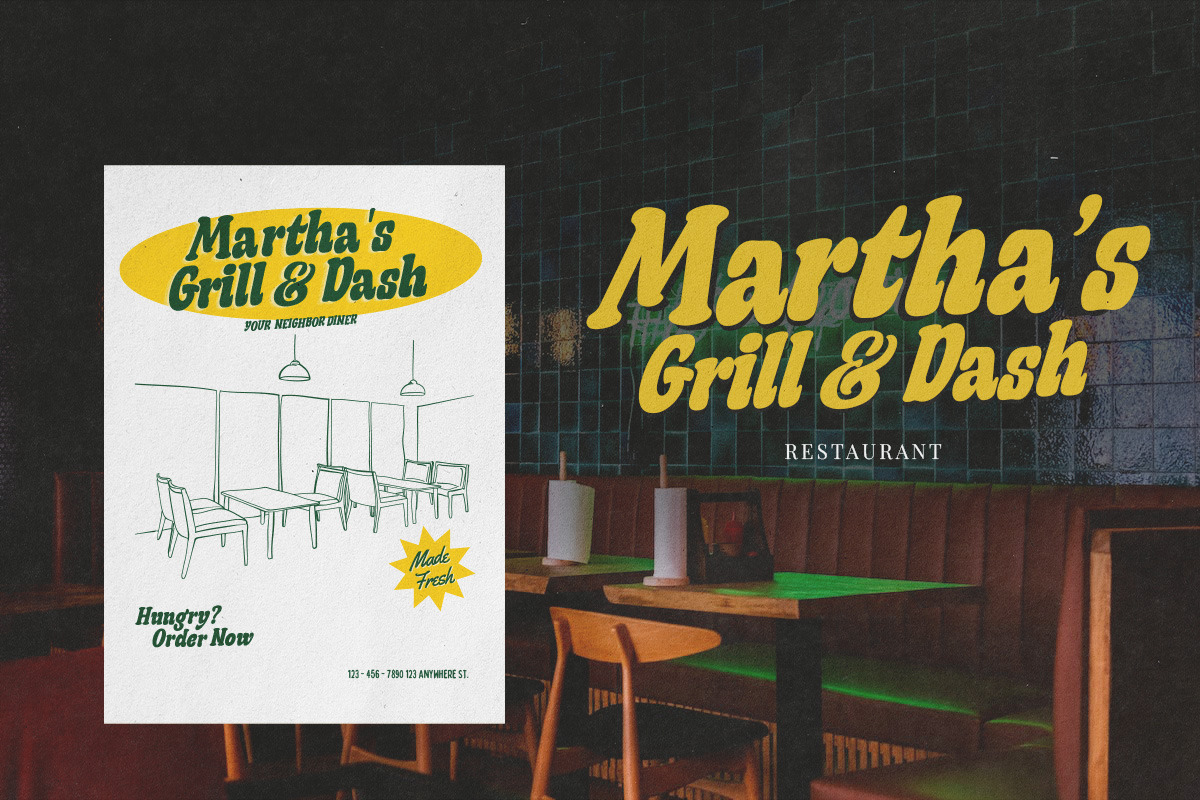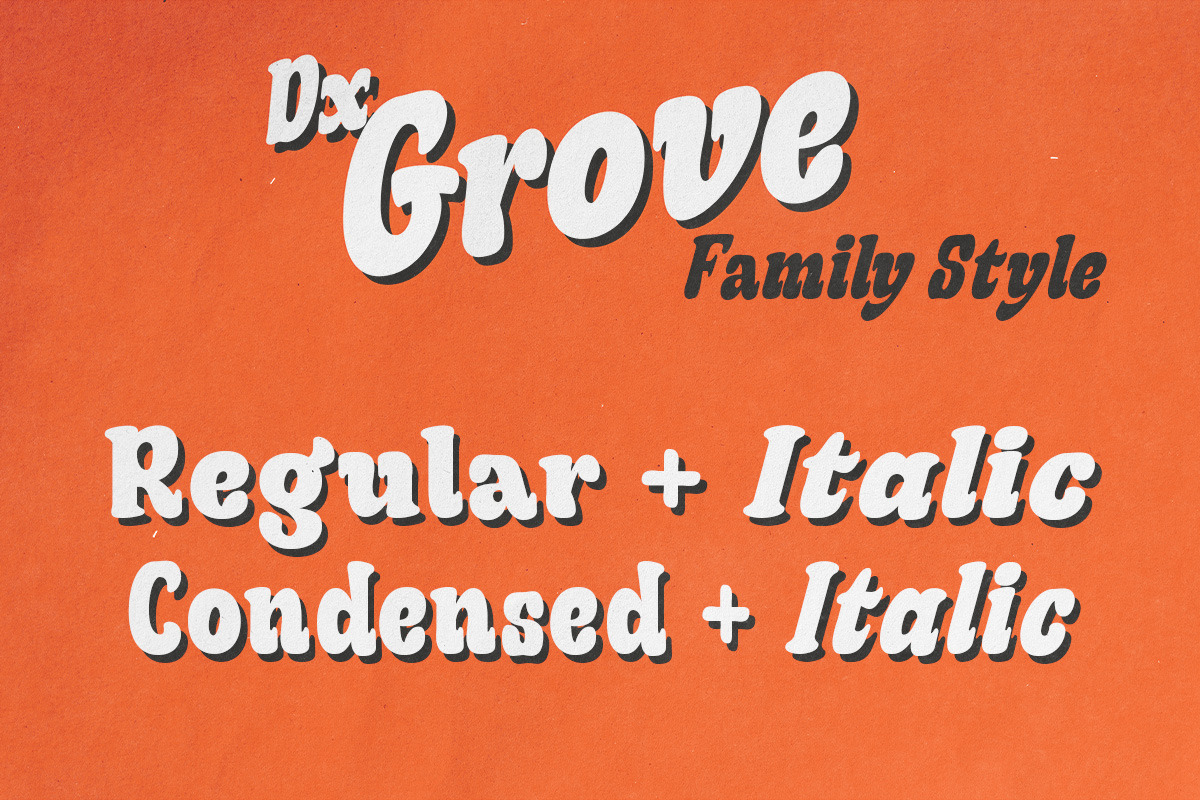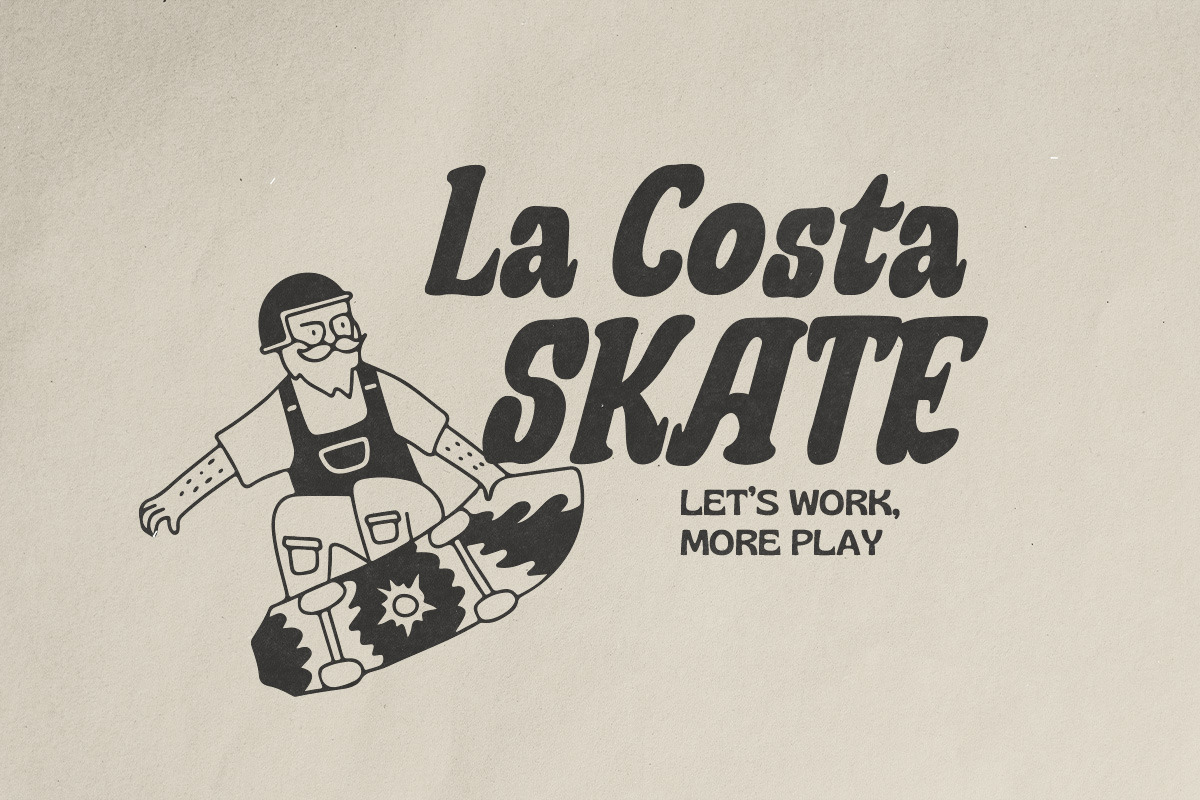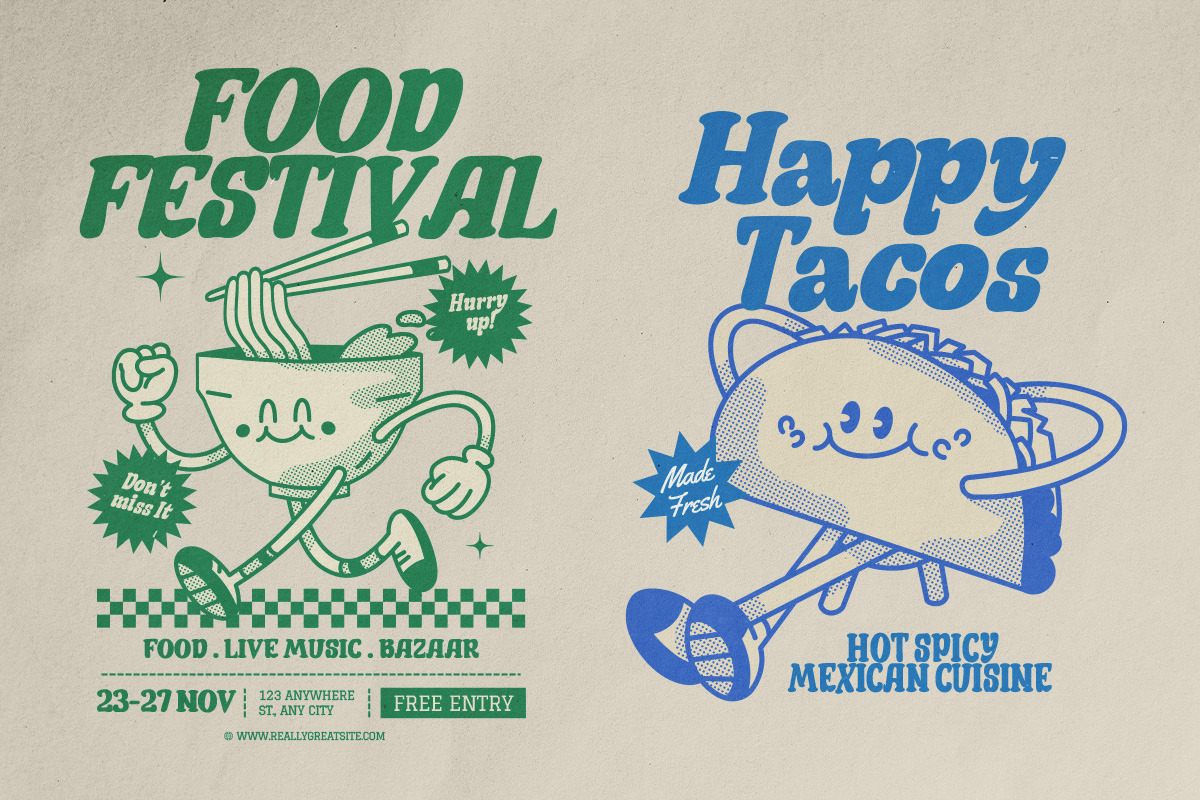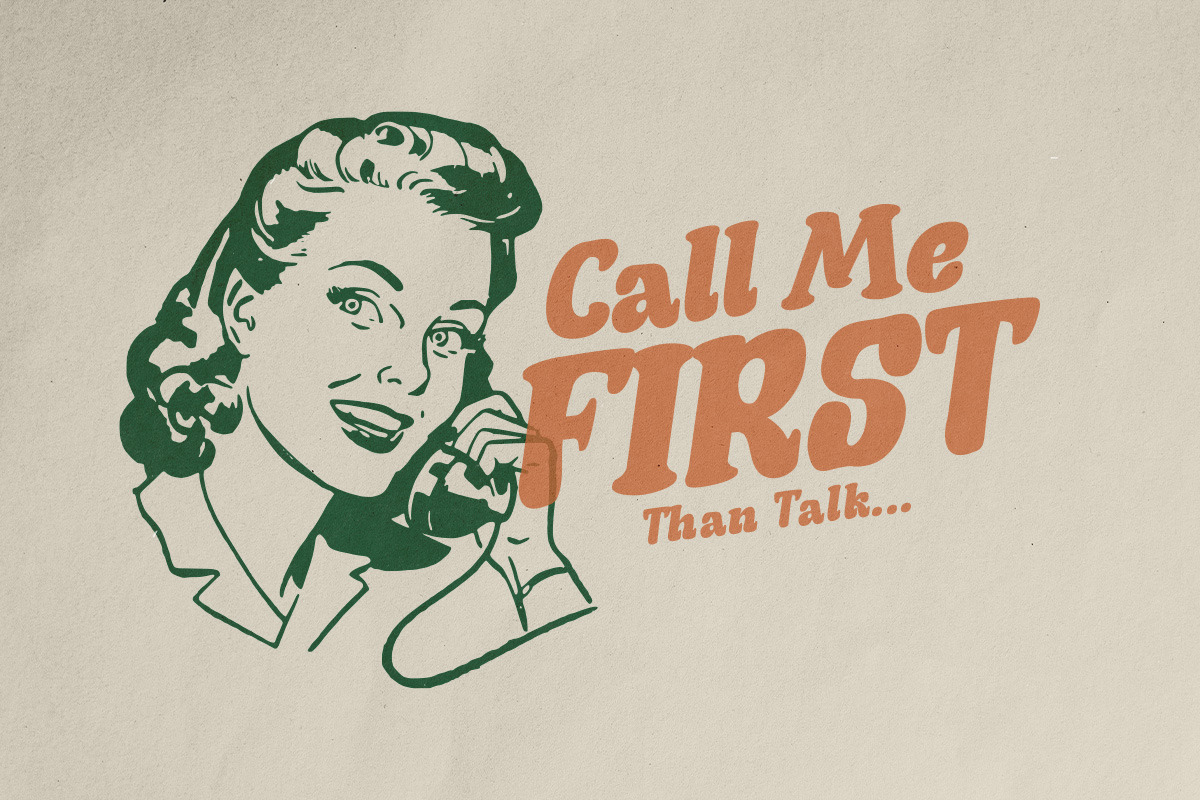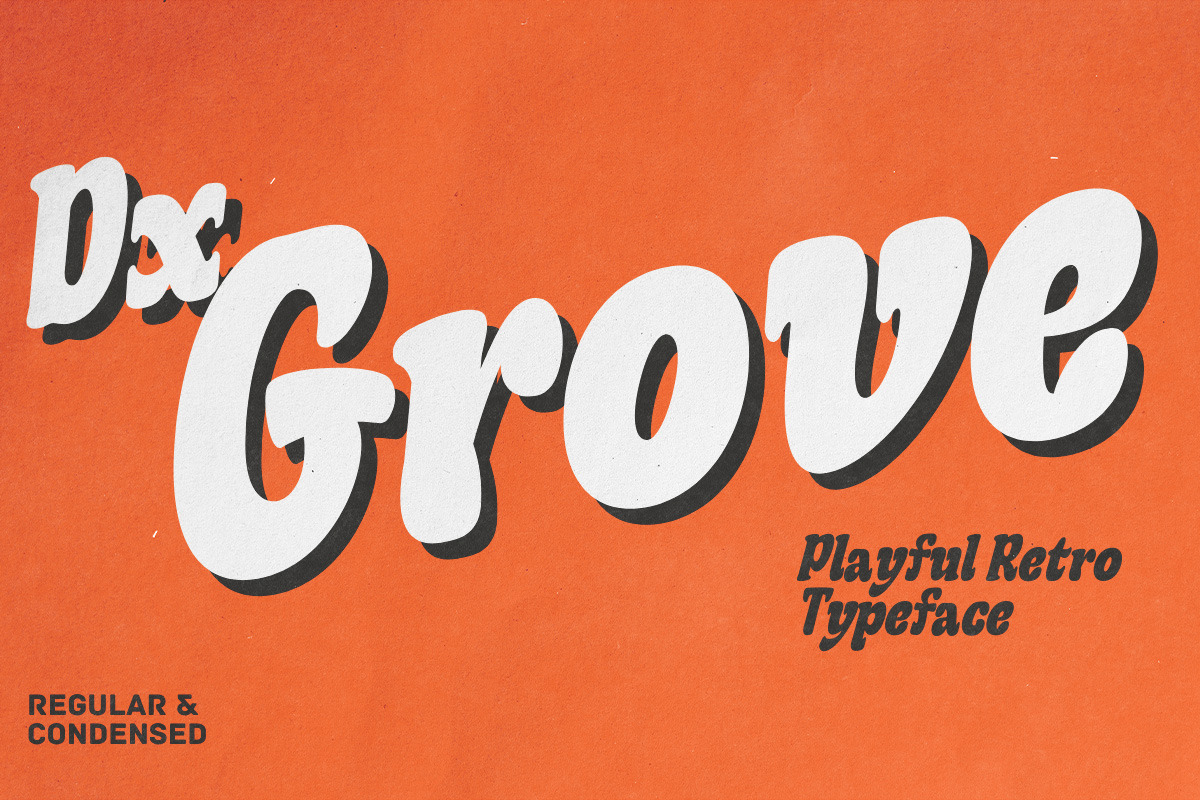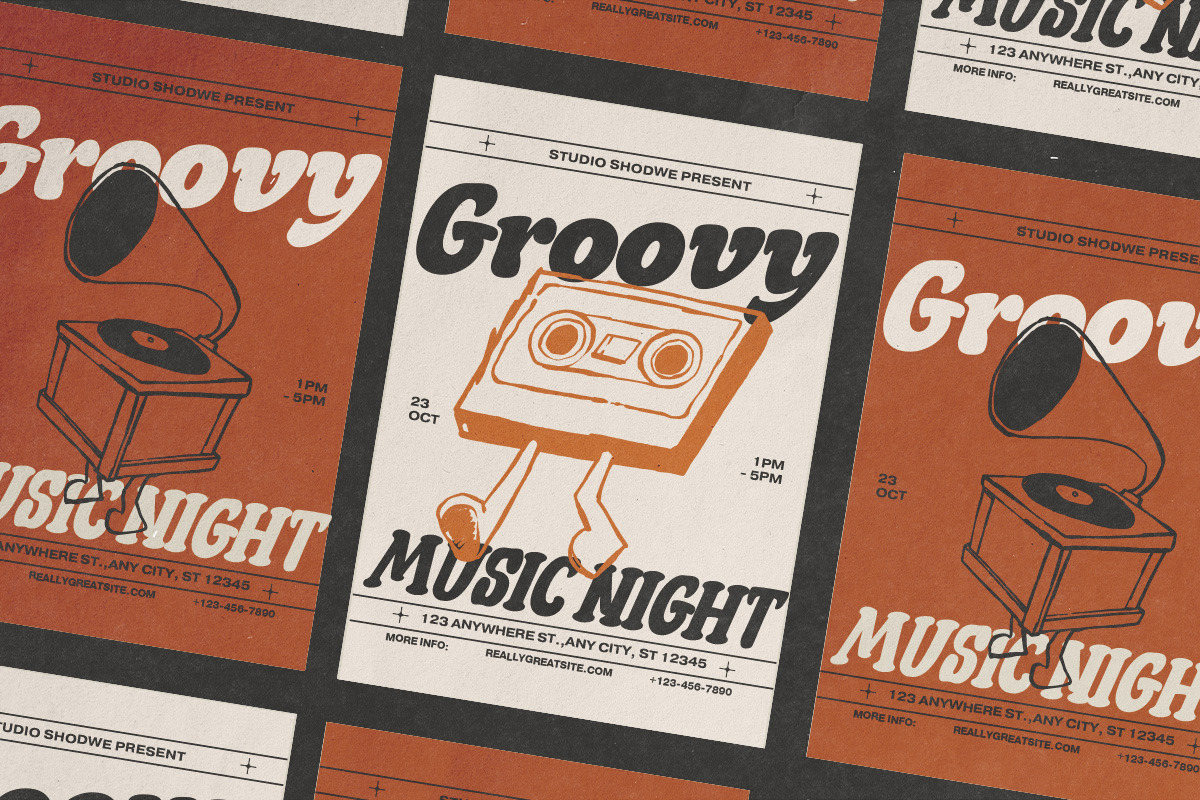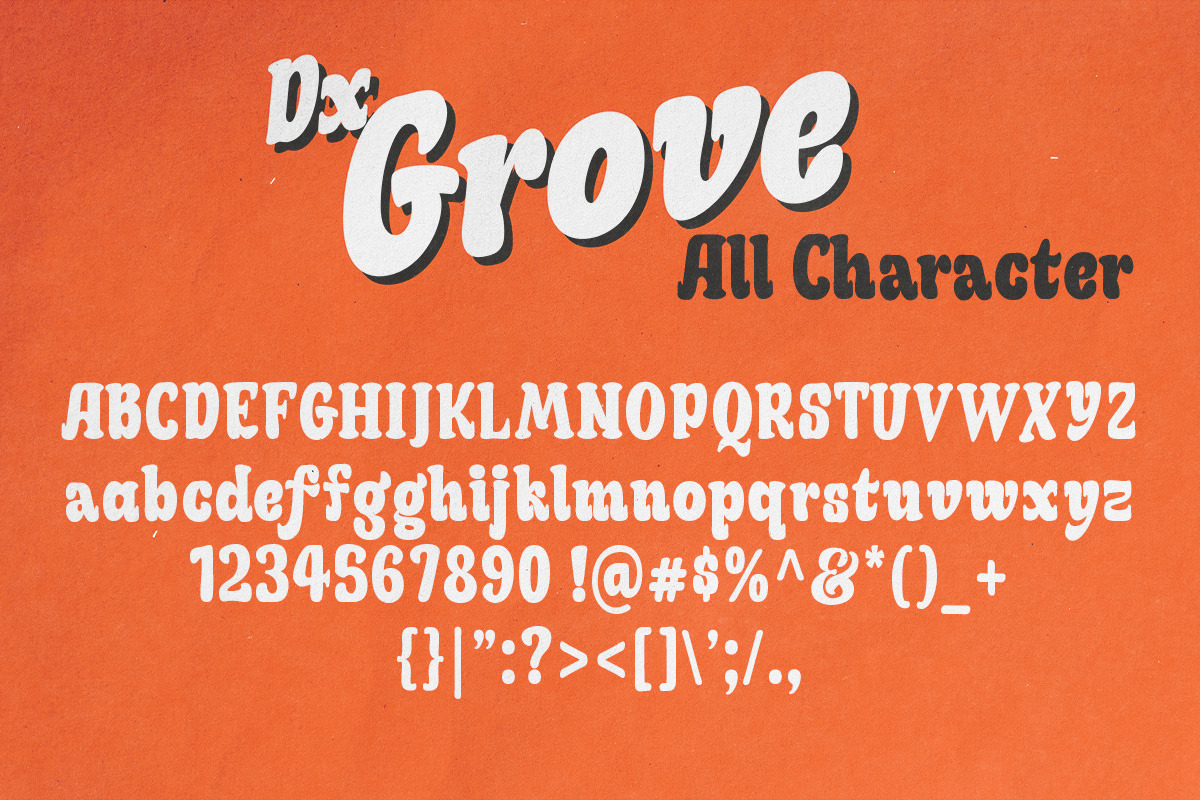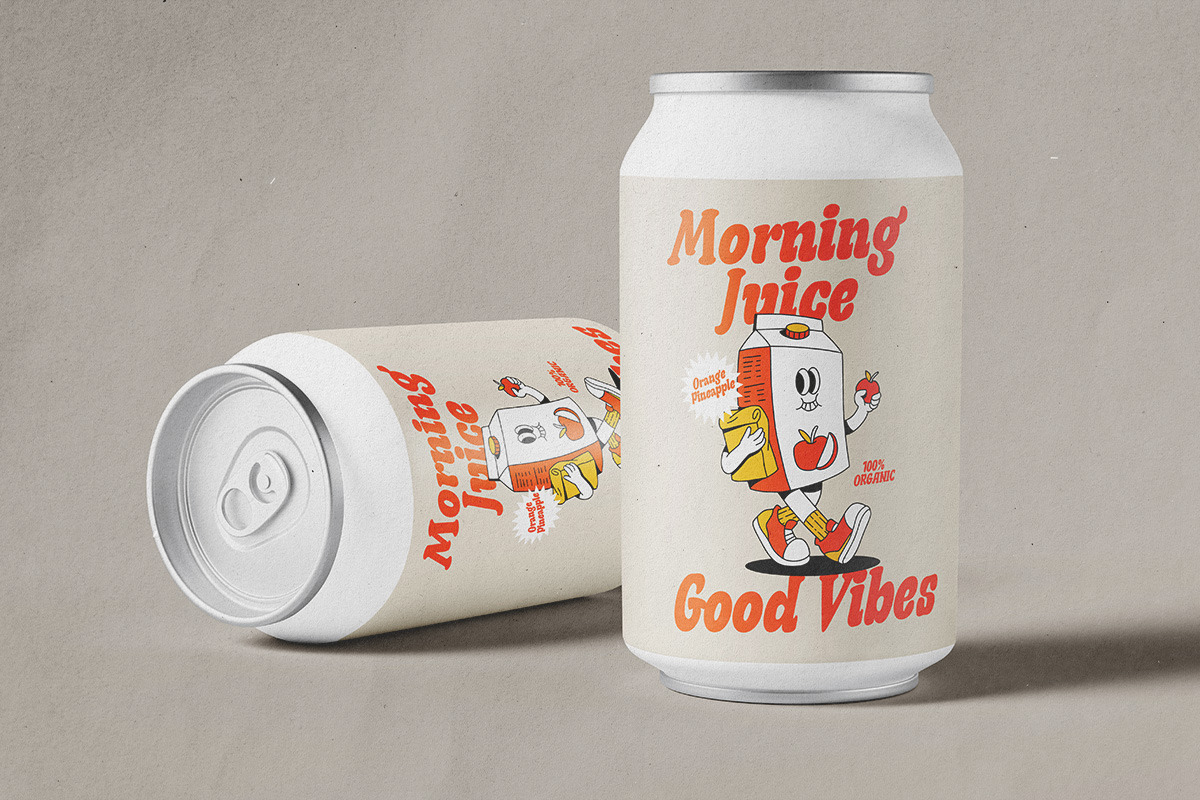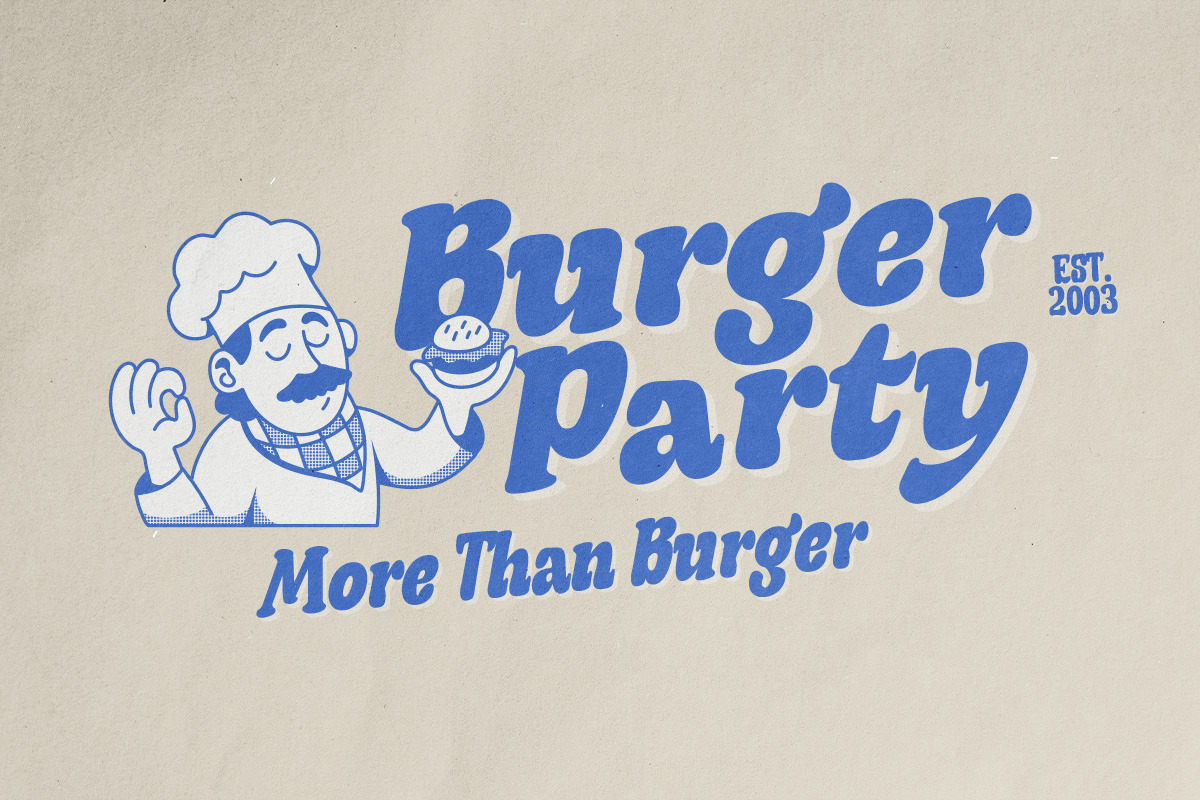
Dx Grove - Variable Retro Font
Introducing Dx Grove, a vintage-inspired font that seamlessly blends nostalgia with elegance, making it the perfect choice for your design projects. This timeless serif font comes in 4 Style regular and Condensed include the italic too. offering you versatility and style for your graphic design, branding and packaging projects.
Capture the essence of the past with Dx Grove free-spirited vintage charm, bringing a touch of yesteryear to your creations. Ideal for wedding invitations, branding, or projects that need nostalgic 90’s font aesthetics, this hand drawn typeface is bold and versatile.